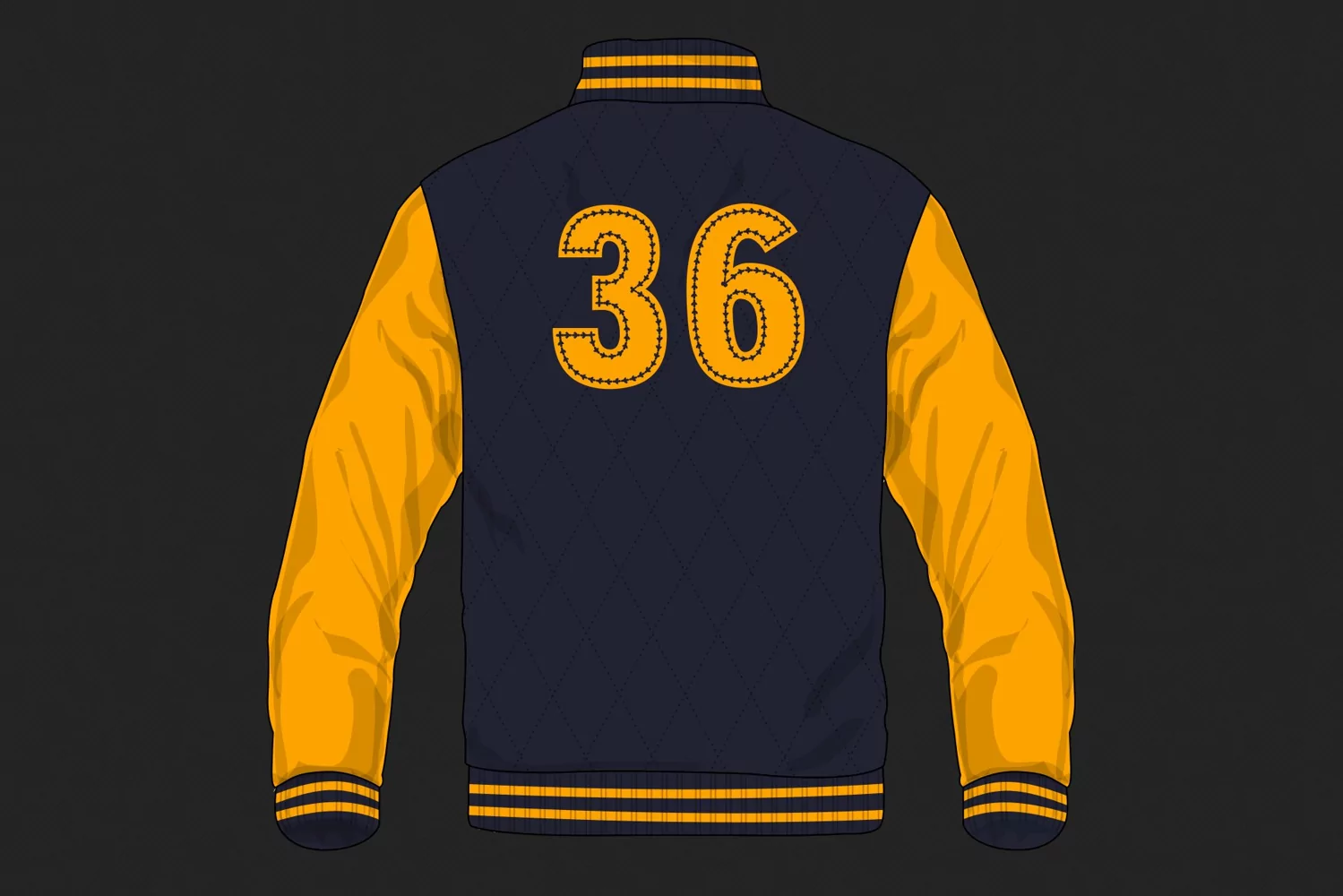
College Sport Split Monogram Font
College Stitched is a sporty display font. With bold and proportional letters, this font is incredibly fitting to a wide range of designs and projects such as brand names, logos, number patterns, sports apparel, and more!